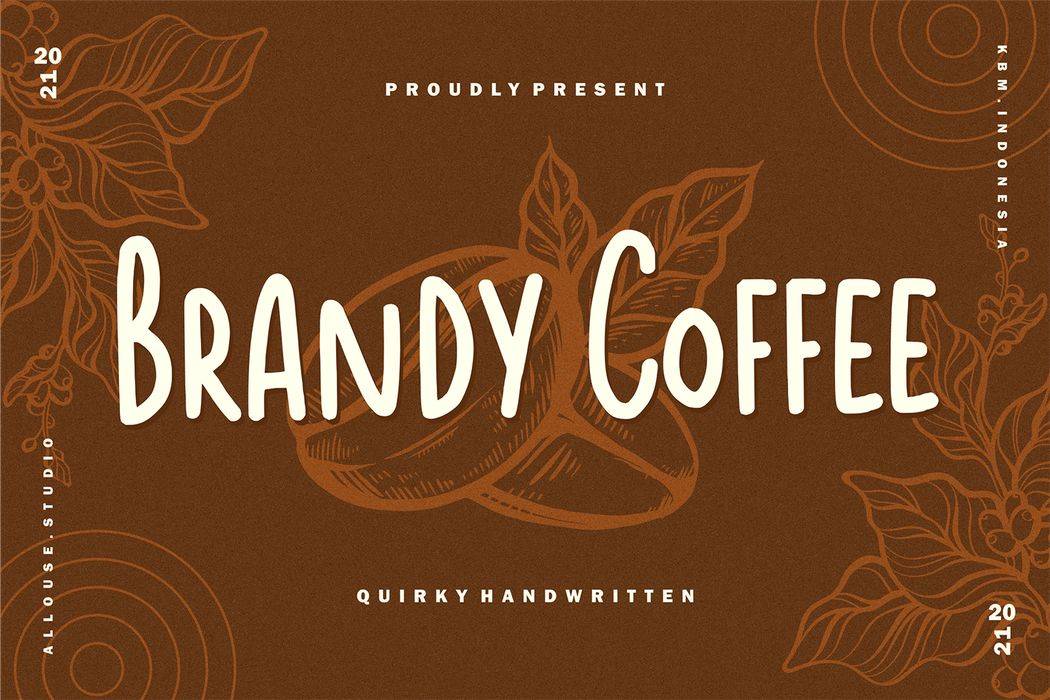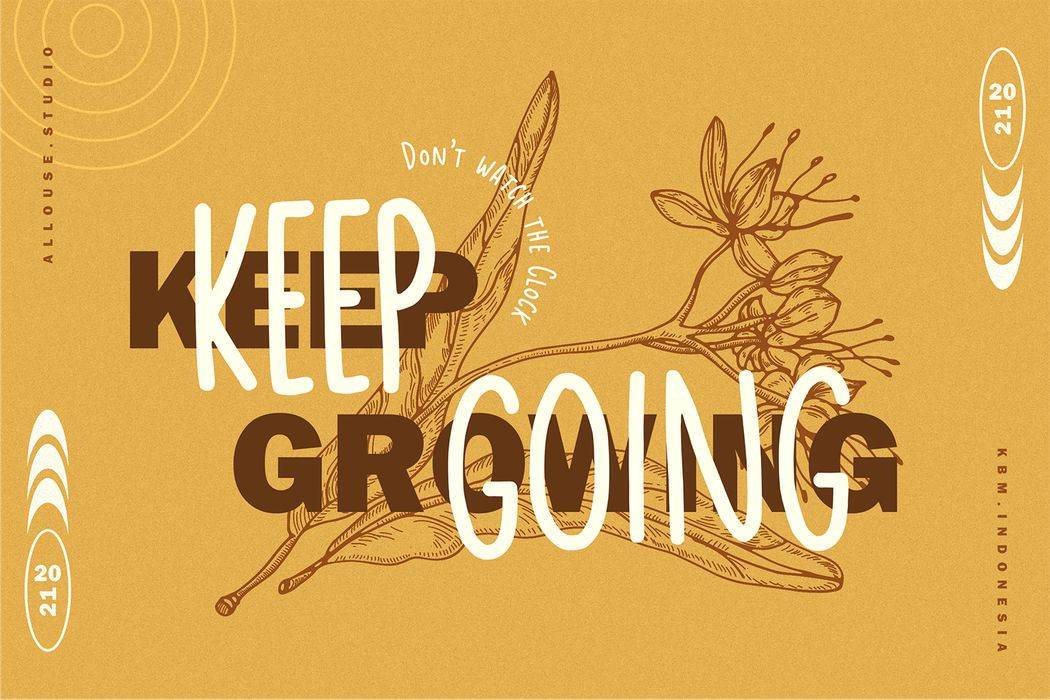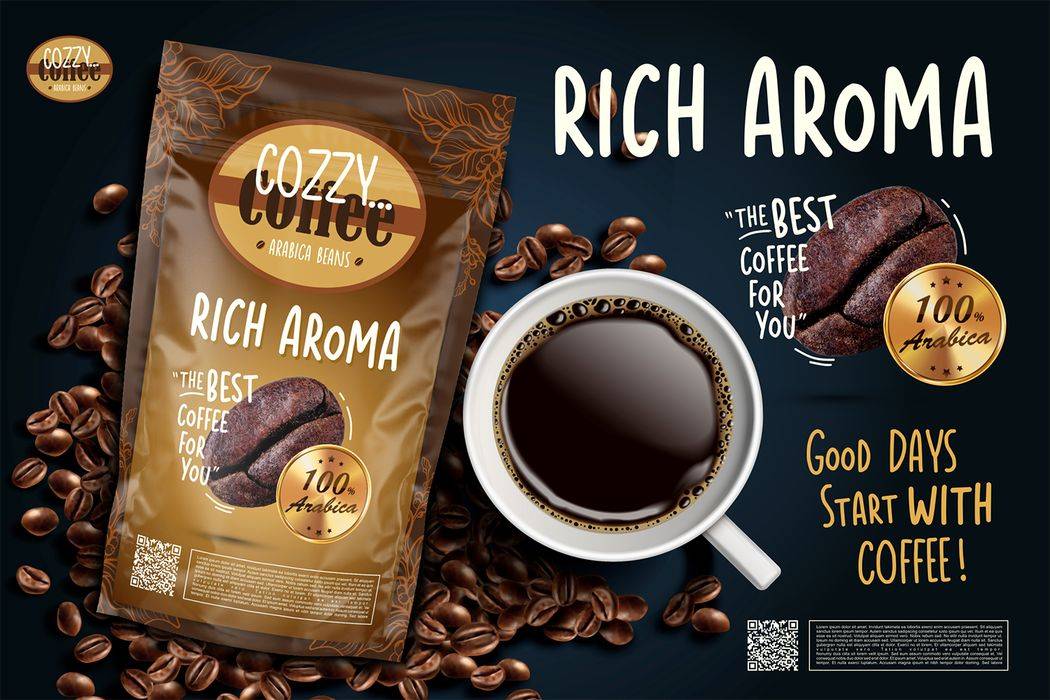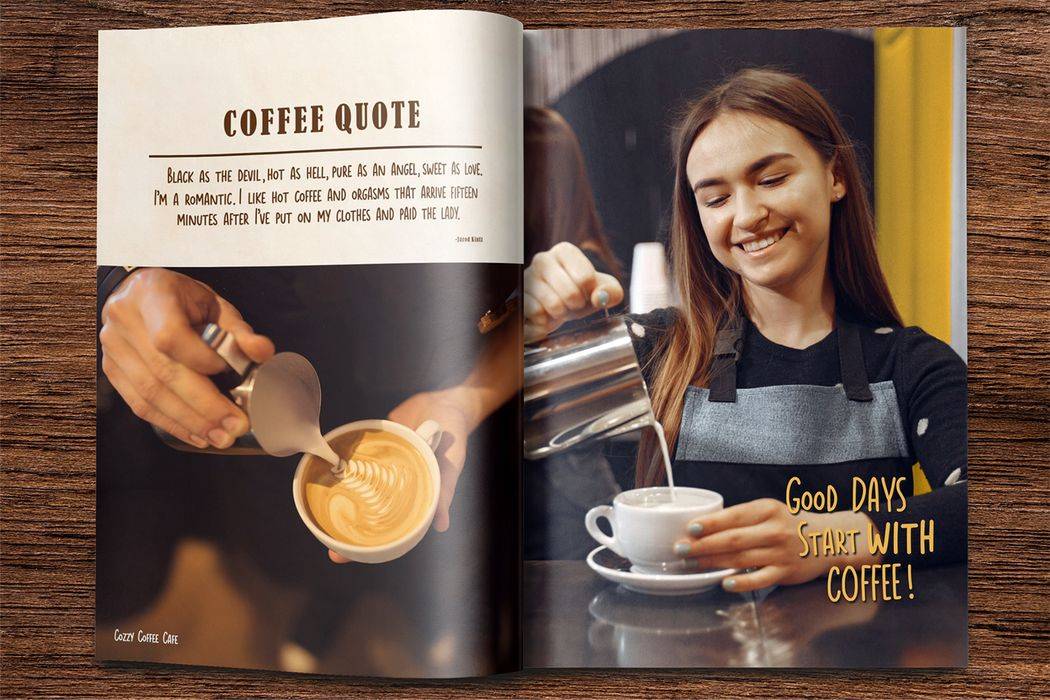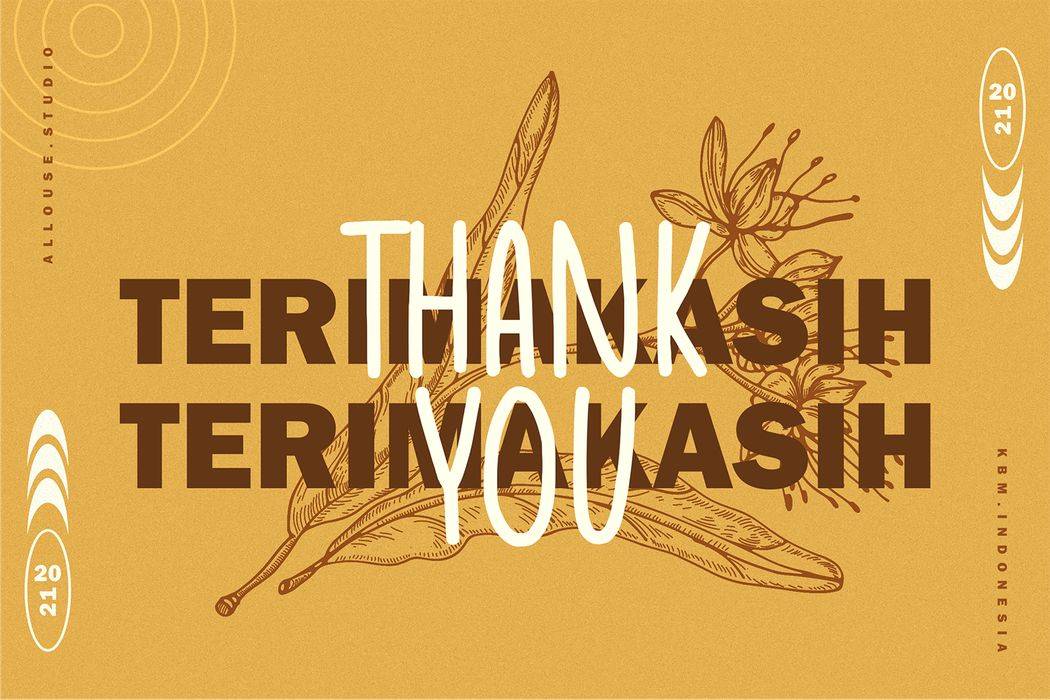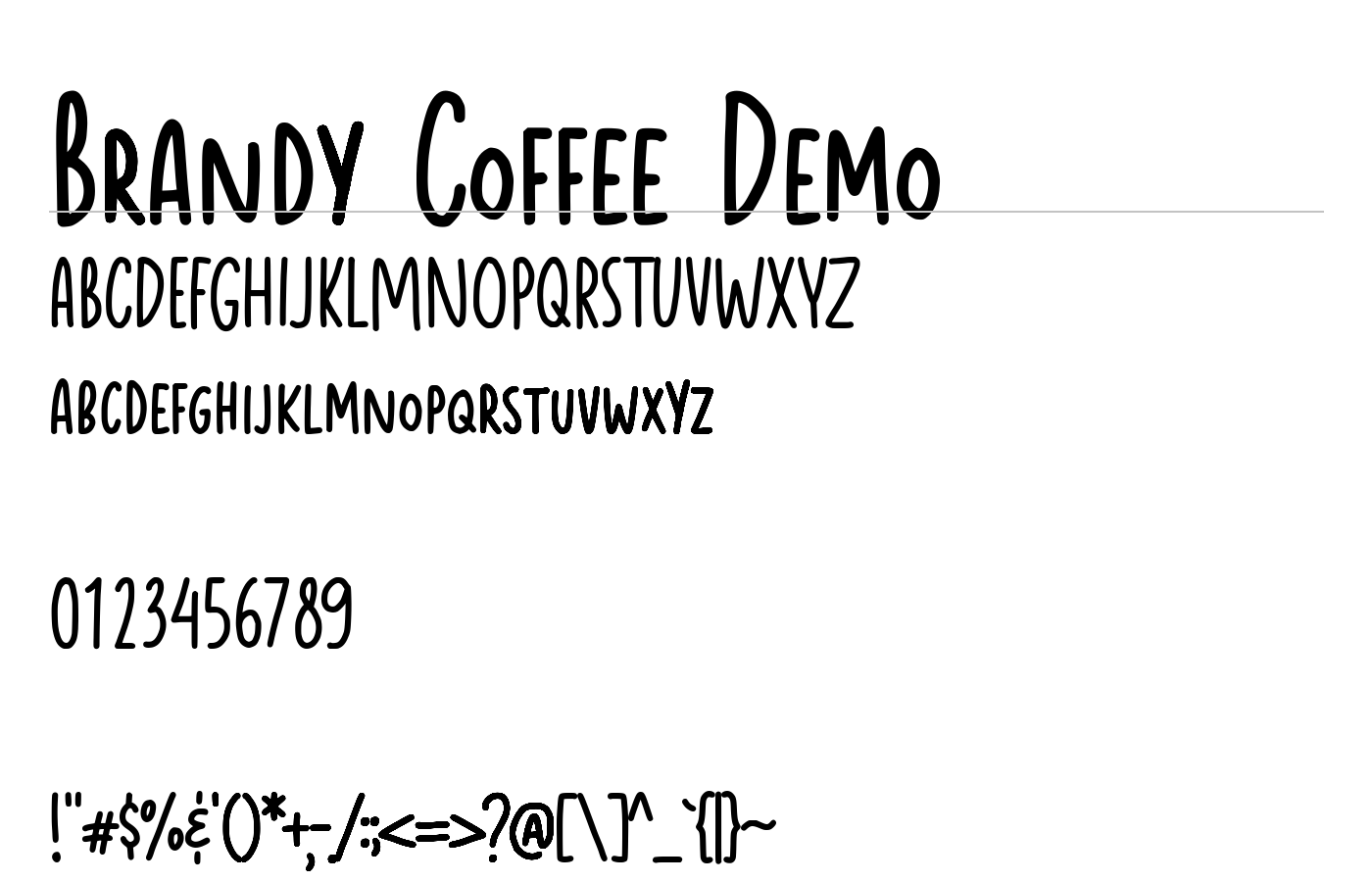
Brandy Coffee is a playful, hand-drawn sans serif font characterized by tall, narrow letterforms and a casual, friendly vibe. Its uneven strokes and quirky shapes make it perfect for informal, creative projects like children’s books, greeting cards, or lifestyle branding. This font works best in headlines or short texts where a warm, approachable personality is desired.
Brandy Coffee Font